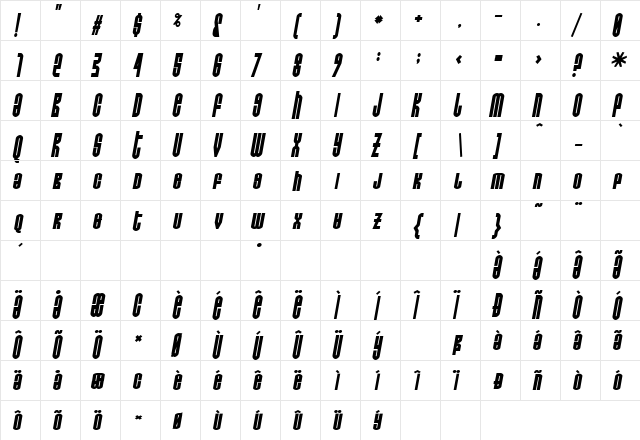
Do not eat this Fat Italic Regular
Design Context for Do not eat this Fat Italic Typeface
Do not eat this Fat Italic offers clean, dependable letterforms without strong stylistic allegiance, making it a practical choice for designers who need flexibility. Its italic angle brings a sense of urgency and motion to the letterforms.